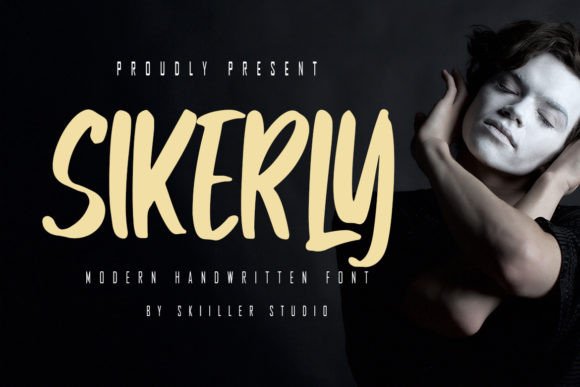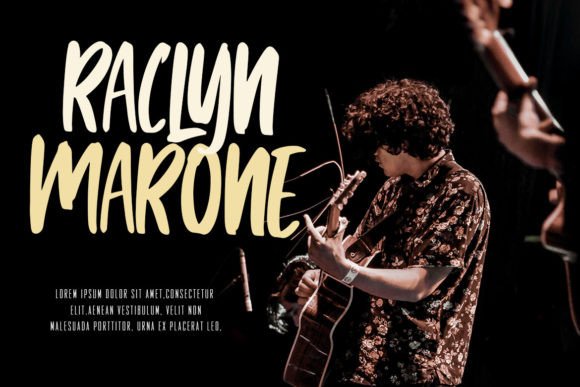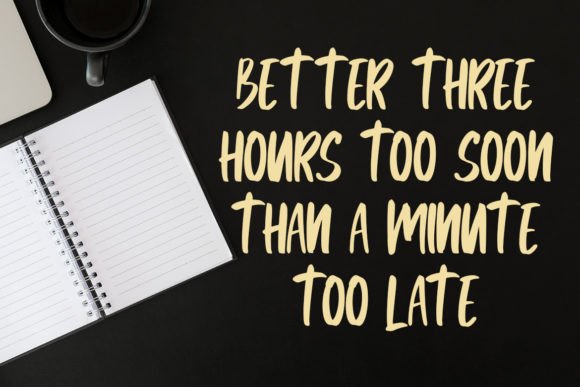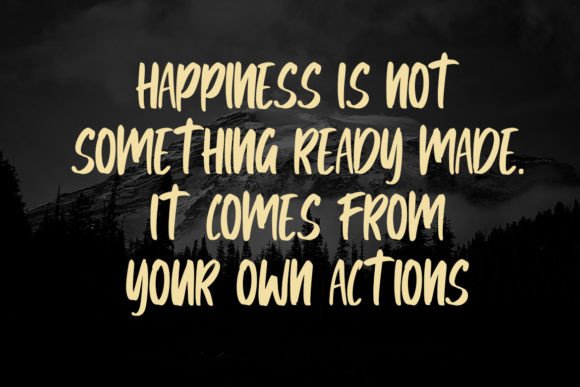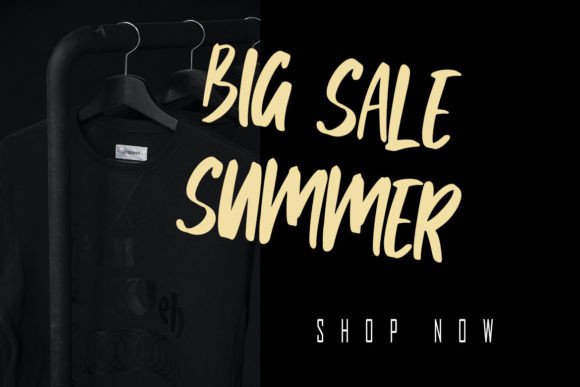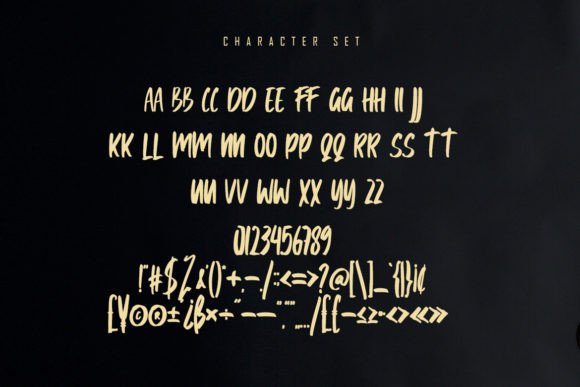
Sikerly Font
About Sikerly Font
Sikerly is a modern handwritten brush font, crafted to give your headlines and logotype projects a stylish touch. This font reads as strong, confident, and dynamic and can add tons of character to your designs.